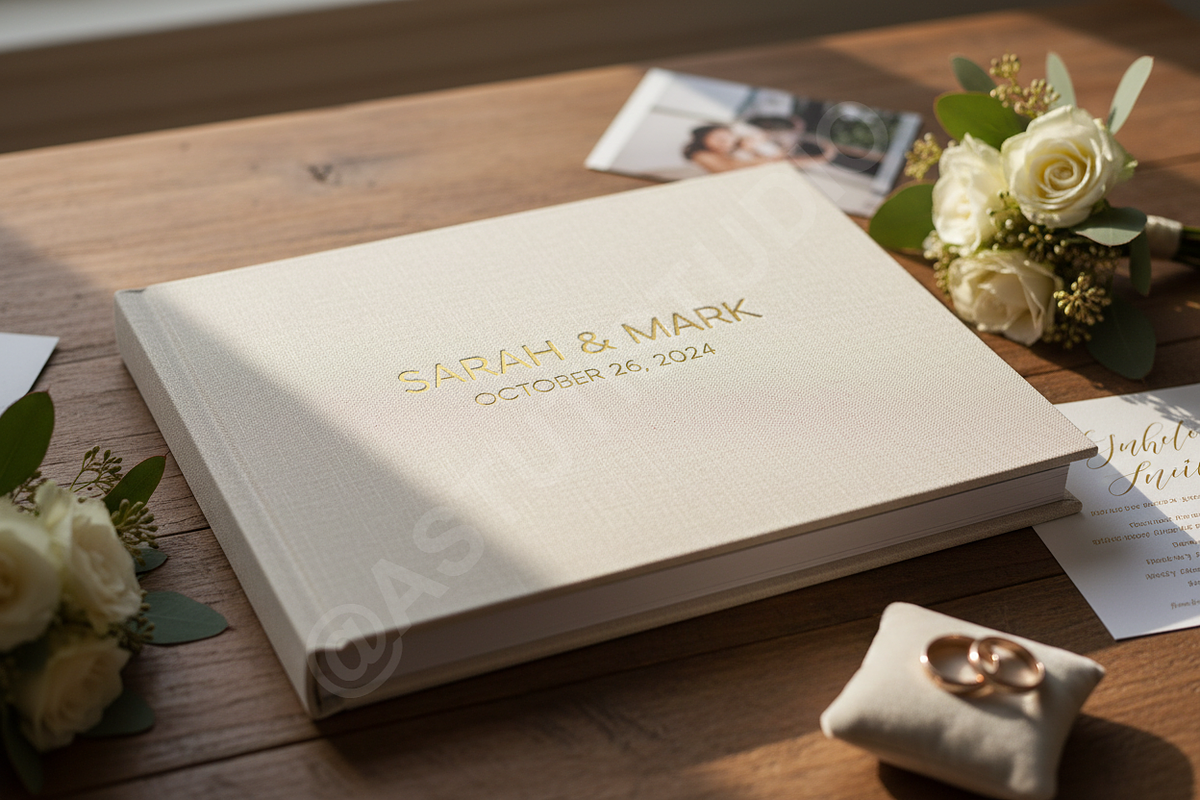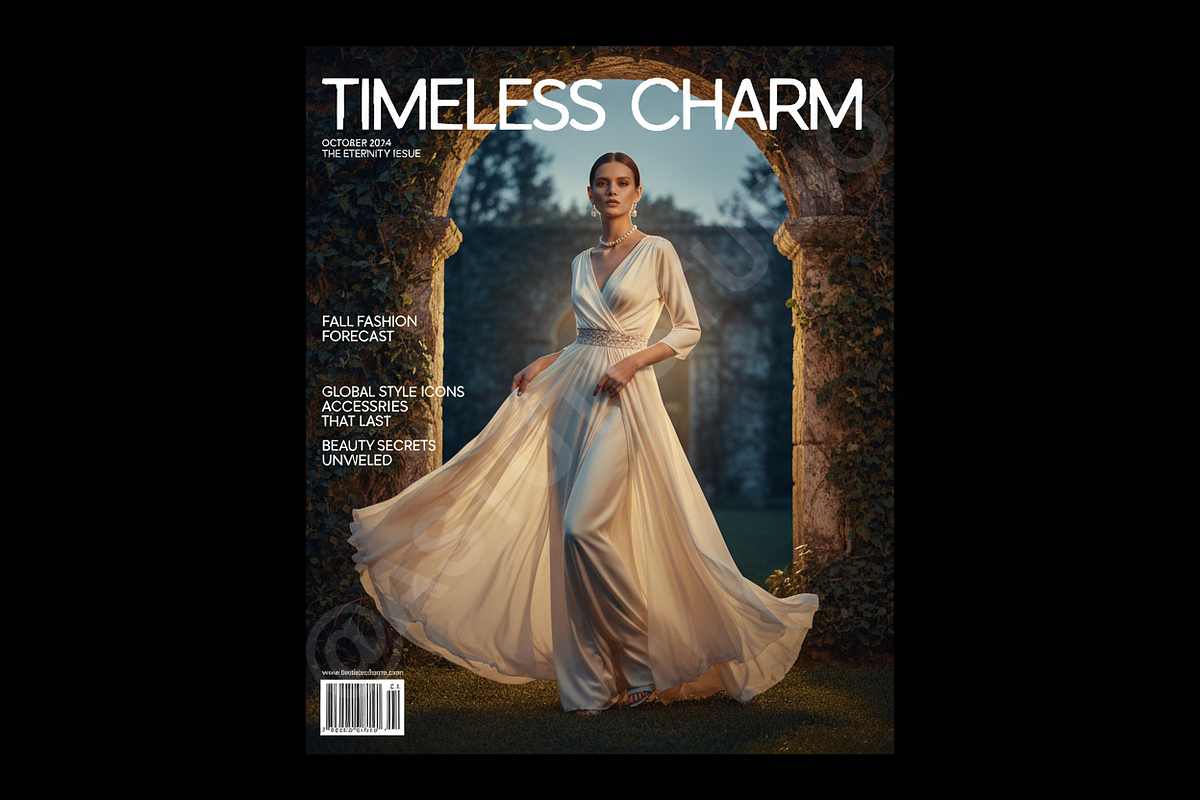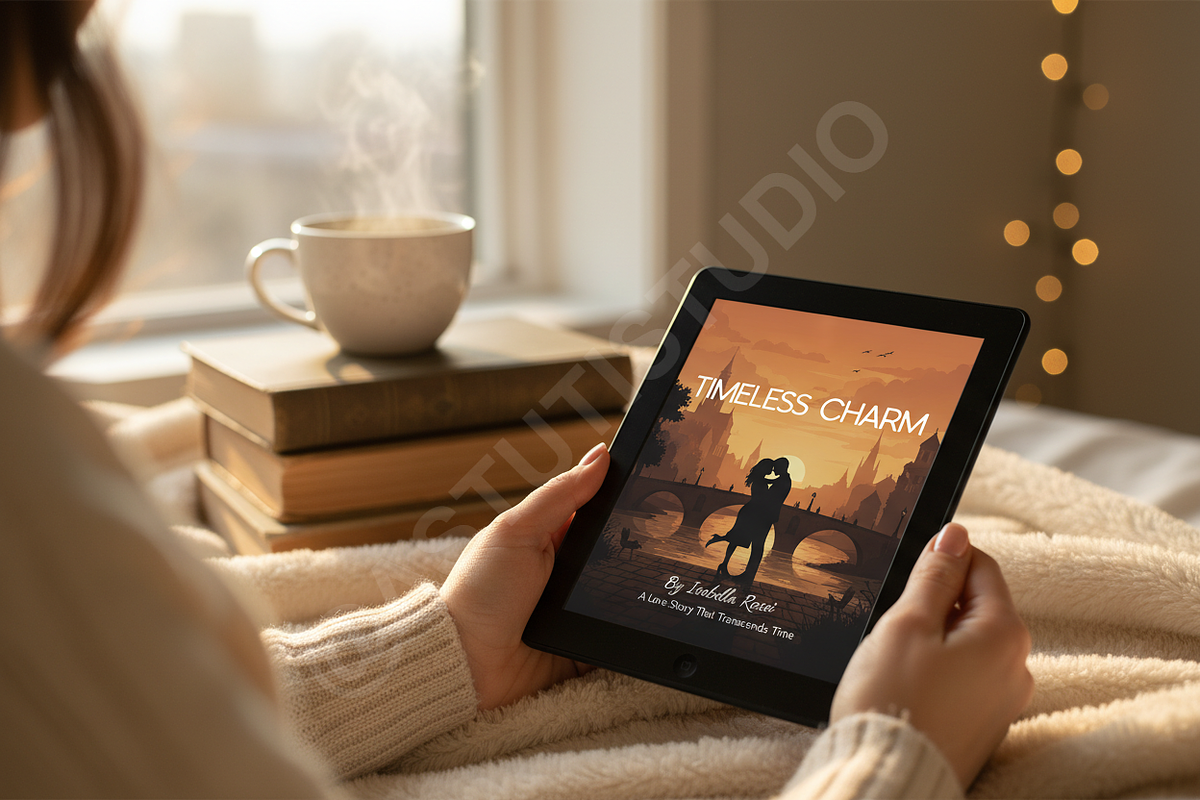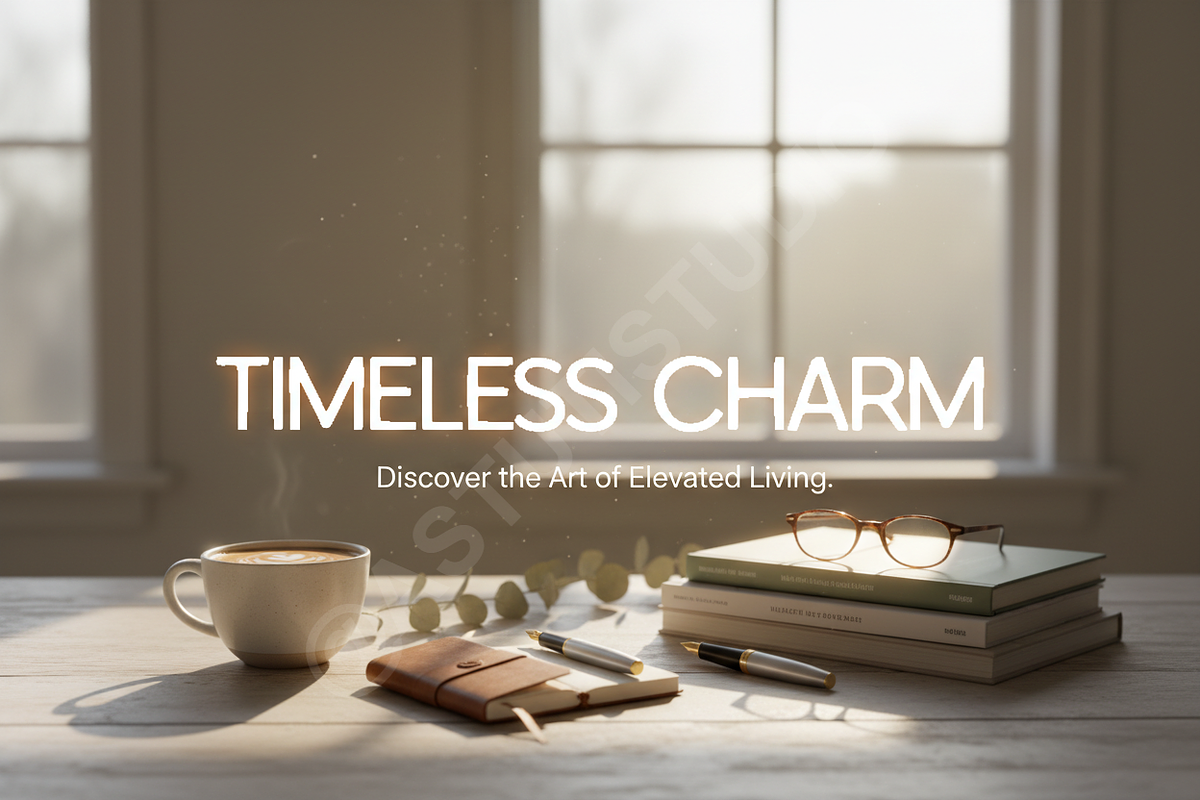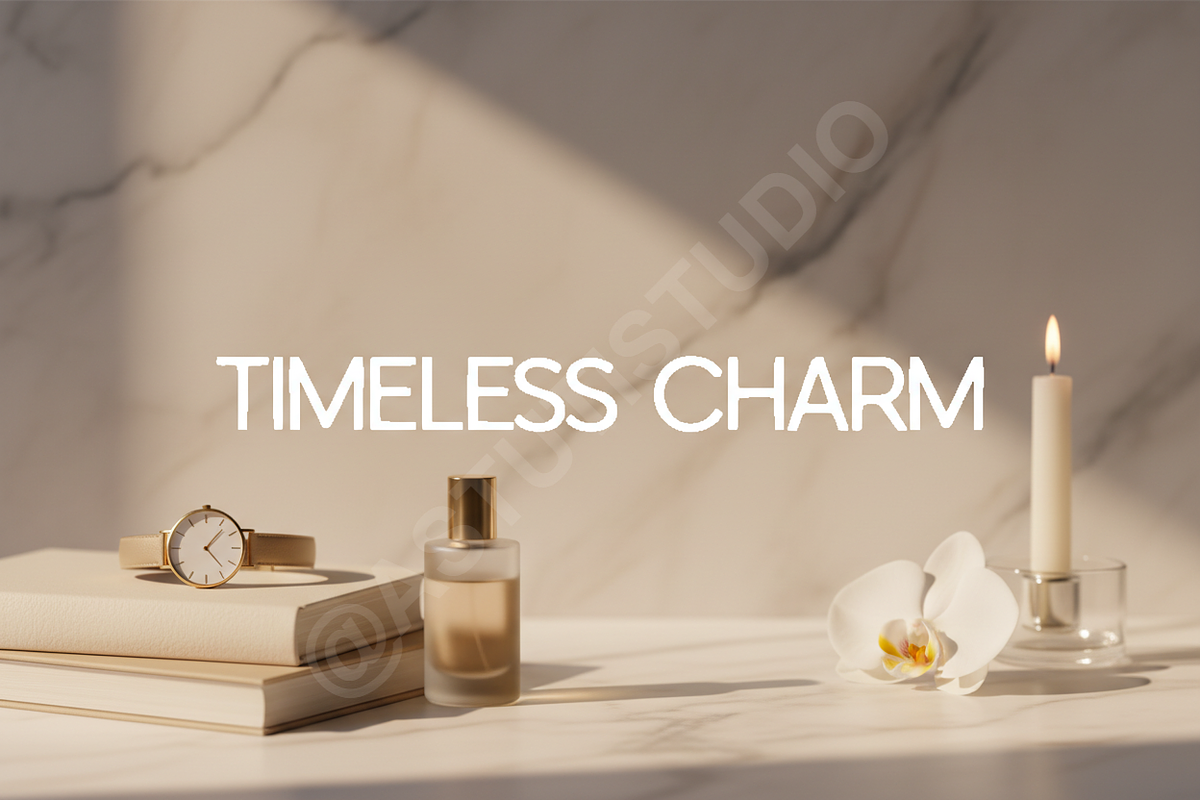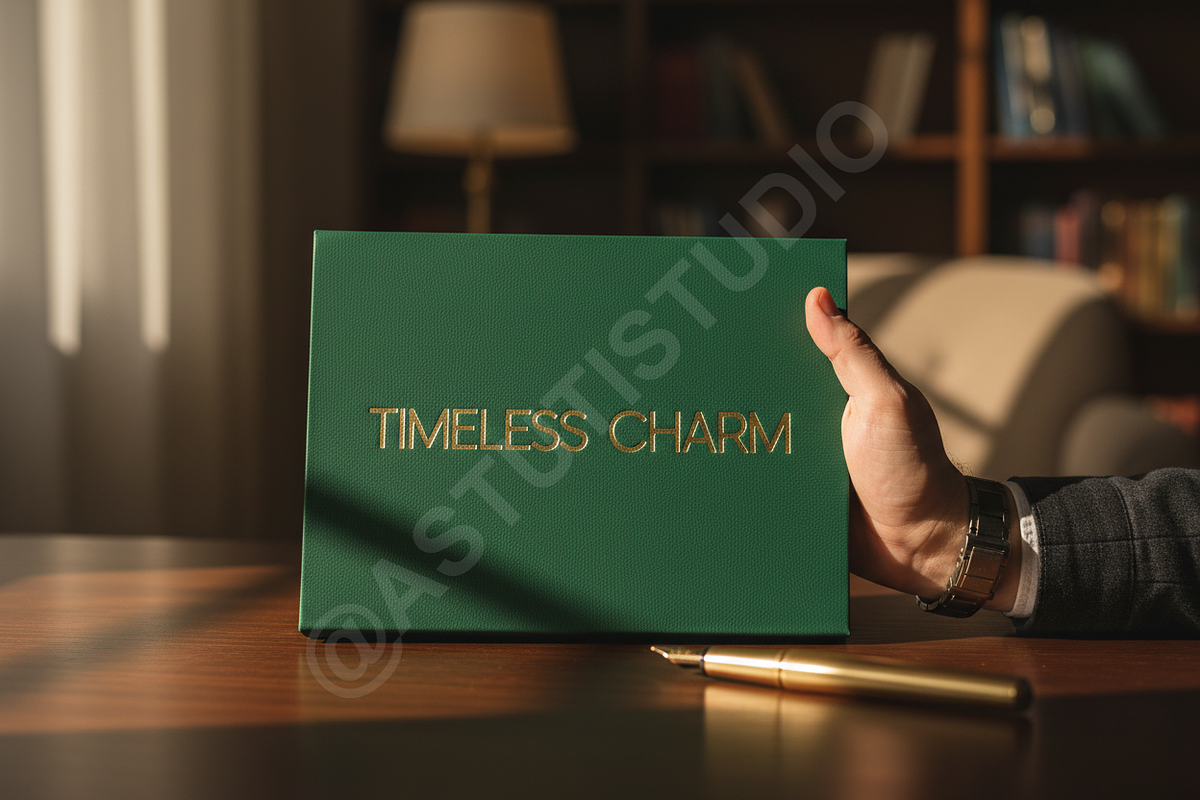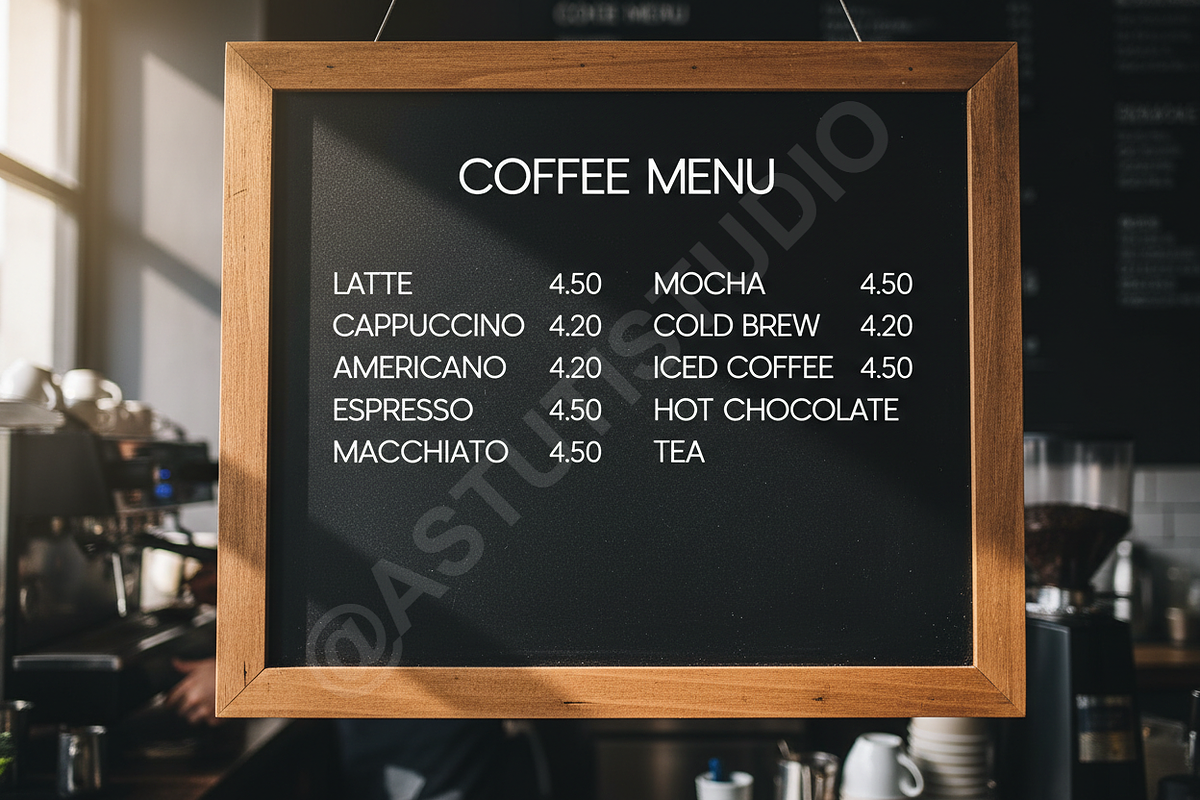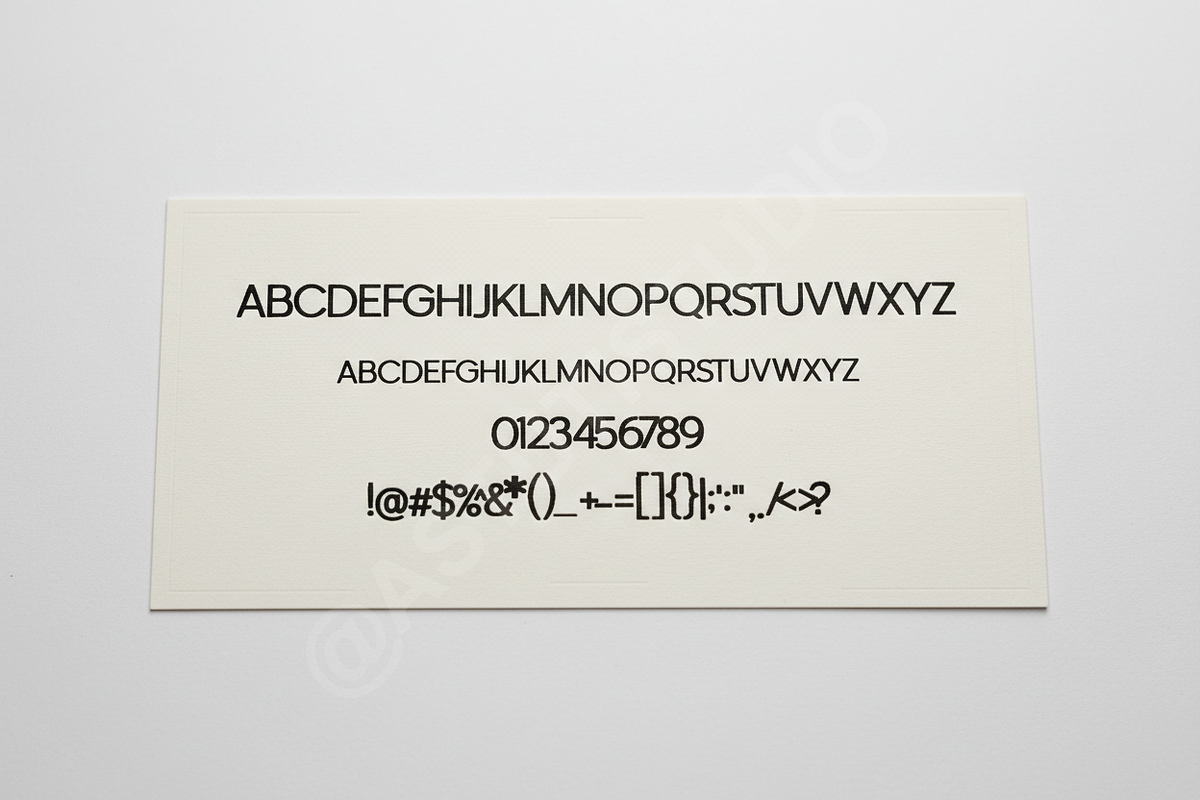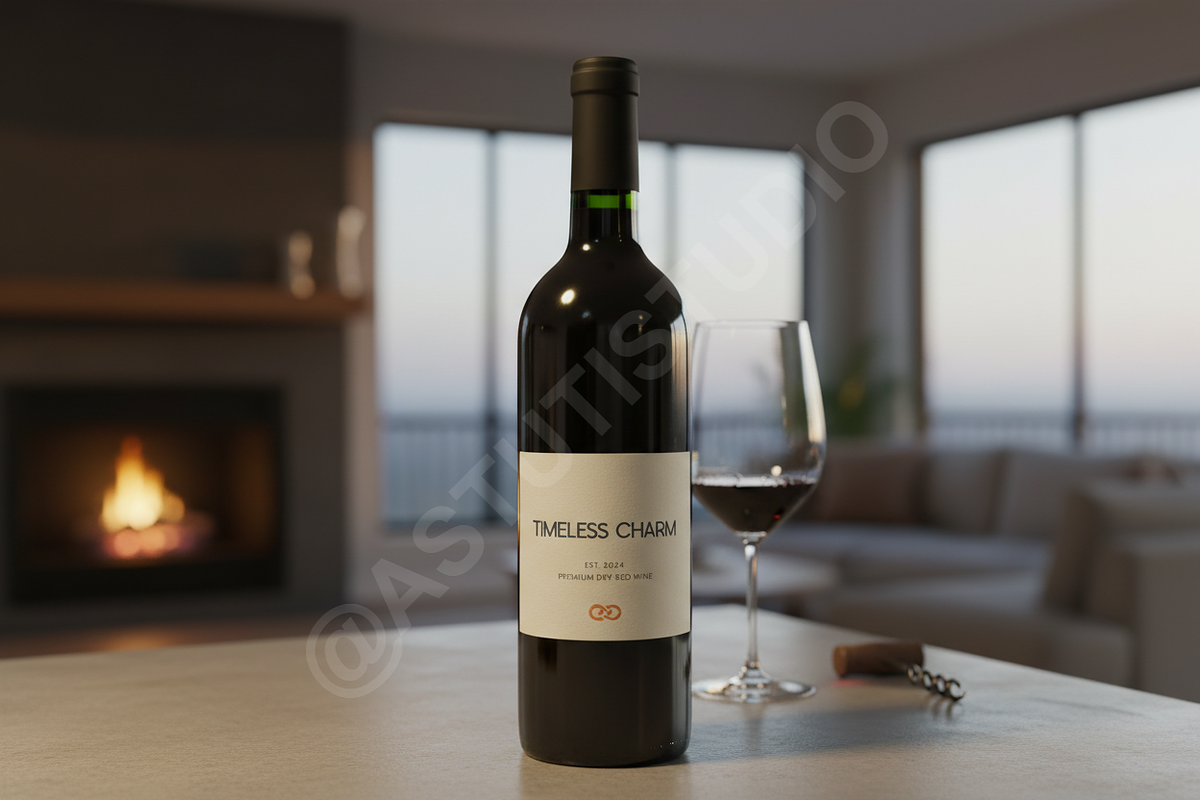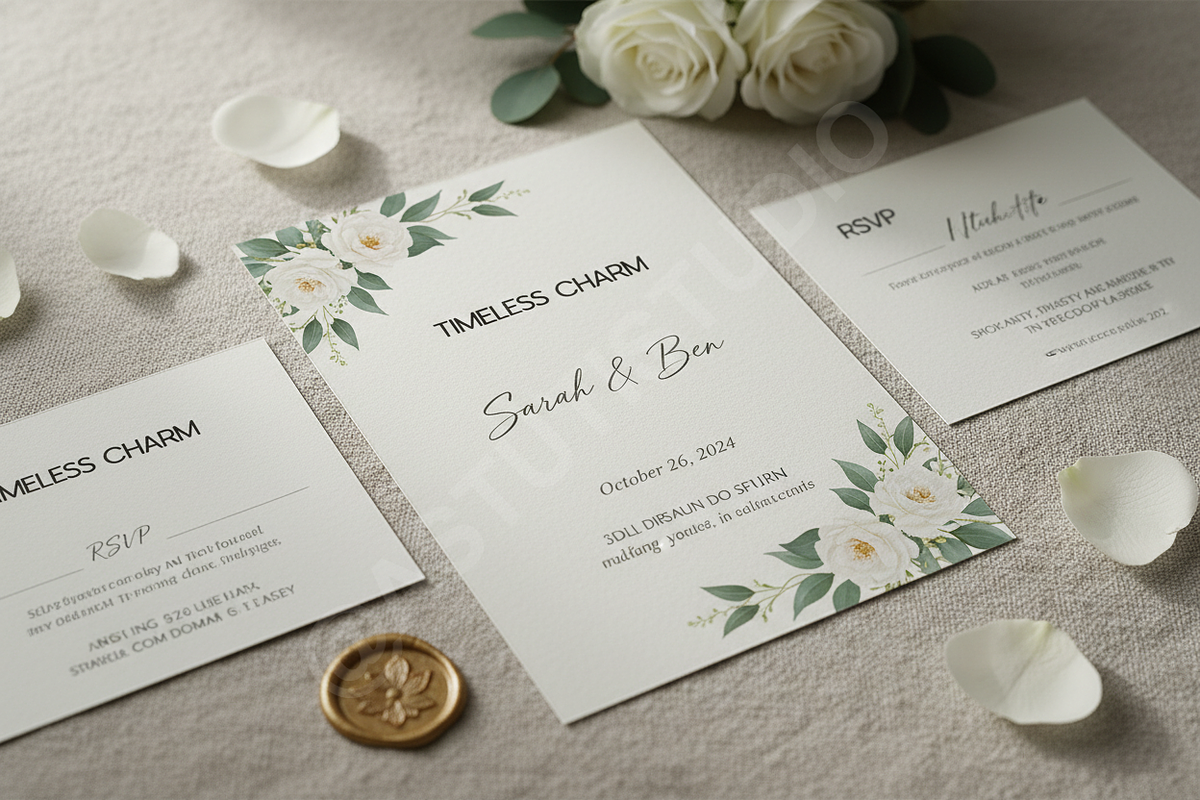
Qaki | Elegant Modern Serif Typefac
Qaki is a high-end serif typeface crafted with precision and elegance. Designed for the discerning creative, it brings a sophisticated edge to every project, balancing timeless beauty with a modern silhouette.
- Sophisticated and balanced letterforms
- High contrast strokes for a premium feel
- Comprehensive multilingual support
- Elegant ligatures and stylistic alternates
- Clean and legible at various sizes
- Luxury branding and identity systems
- Editorial layout and magazine design
- High-fashion social media aesthetics
- Minimalist logo marks and stationery
- Refined wedding invitations and event collateral